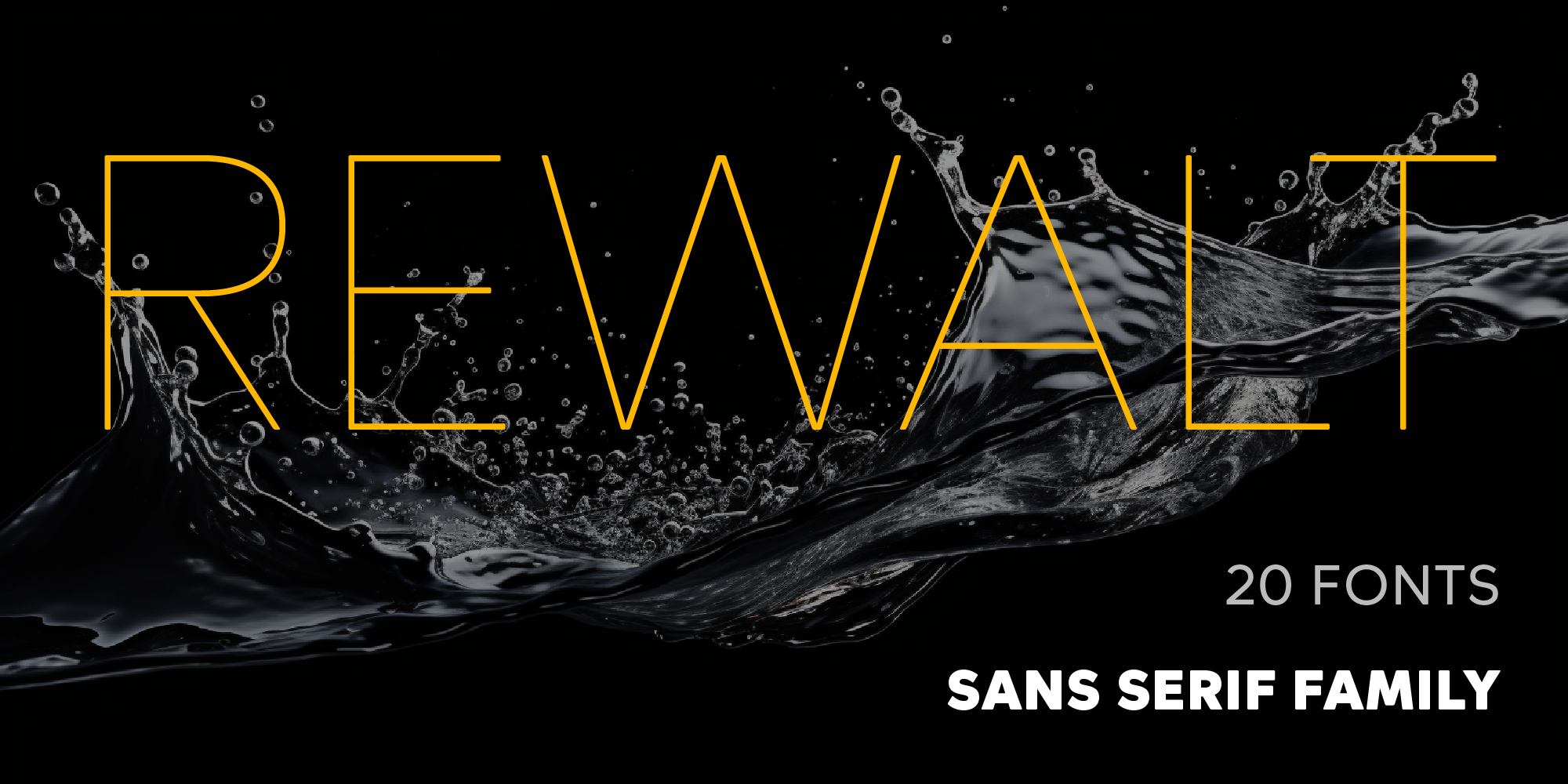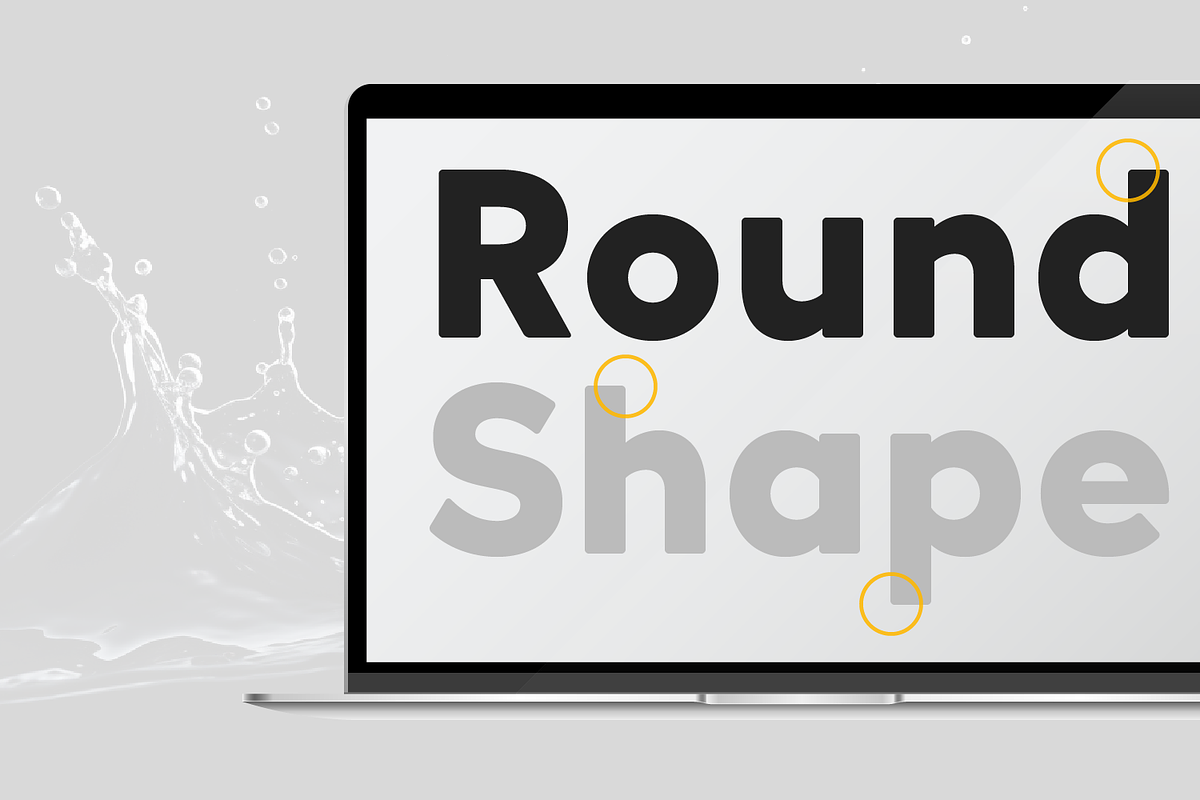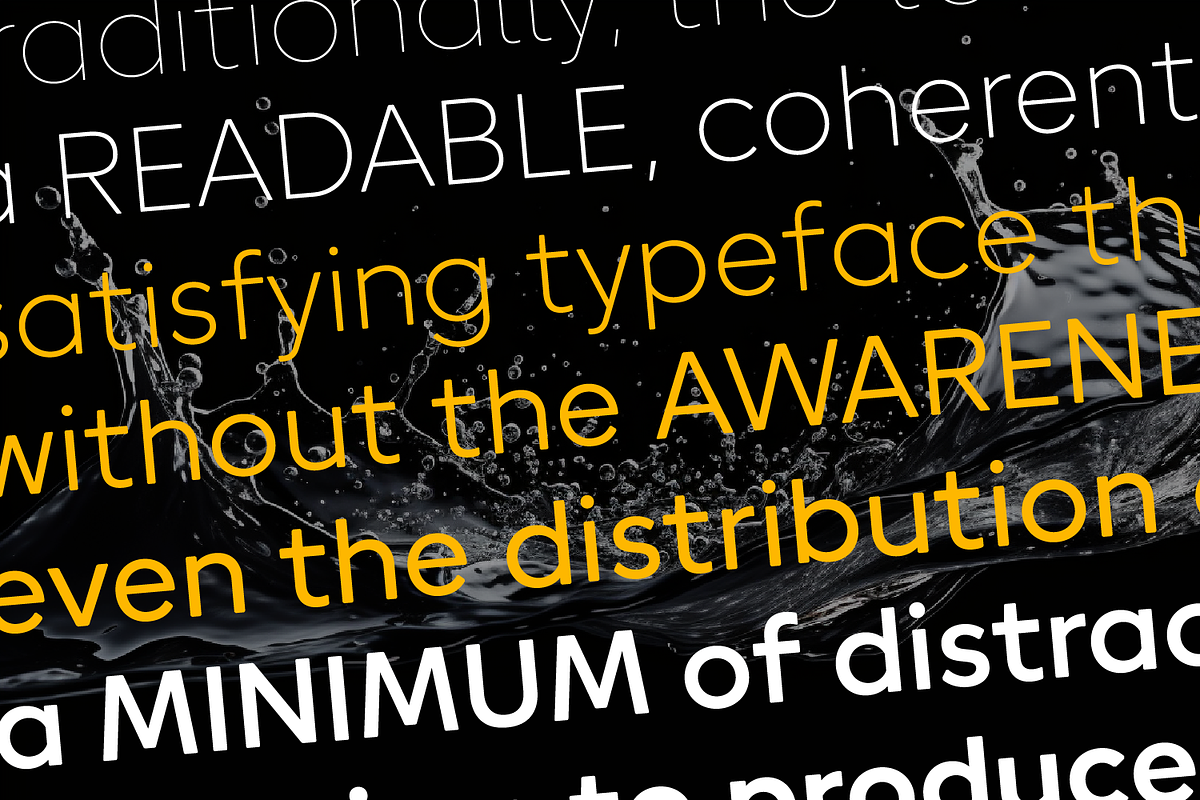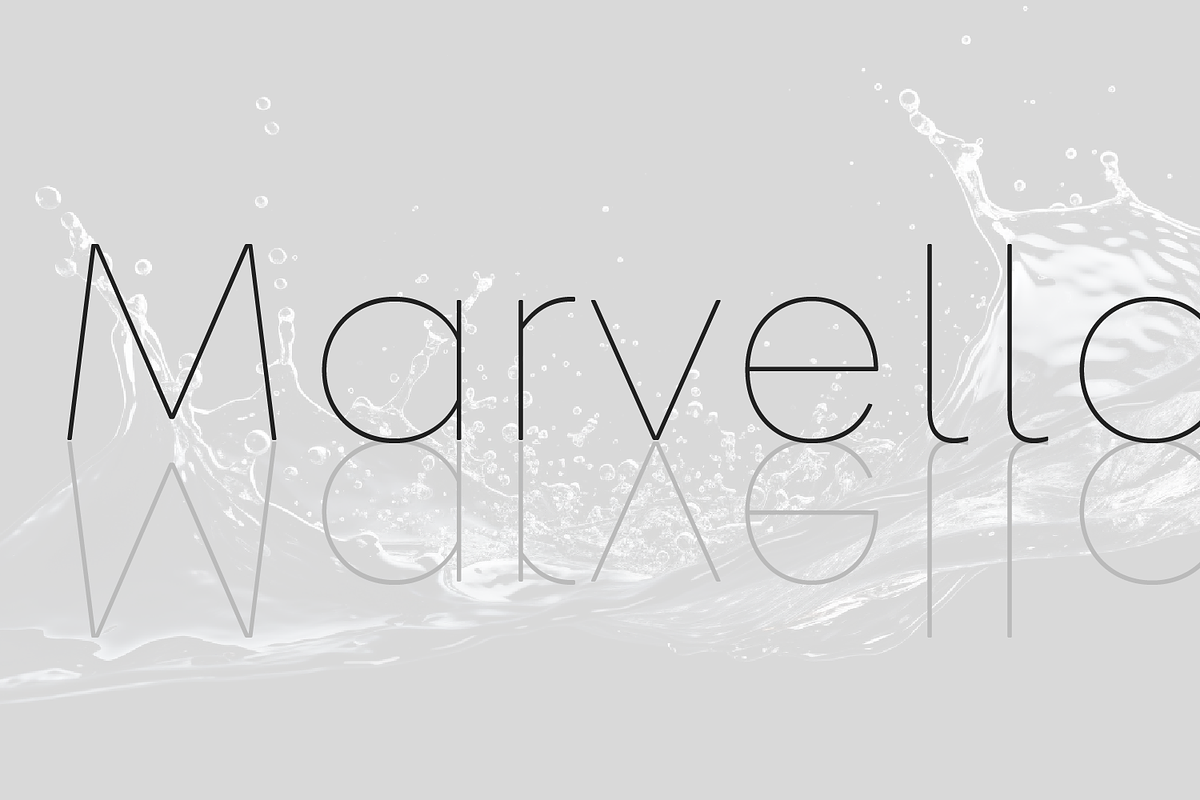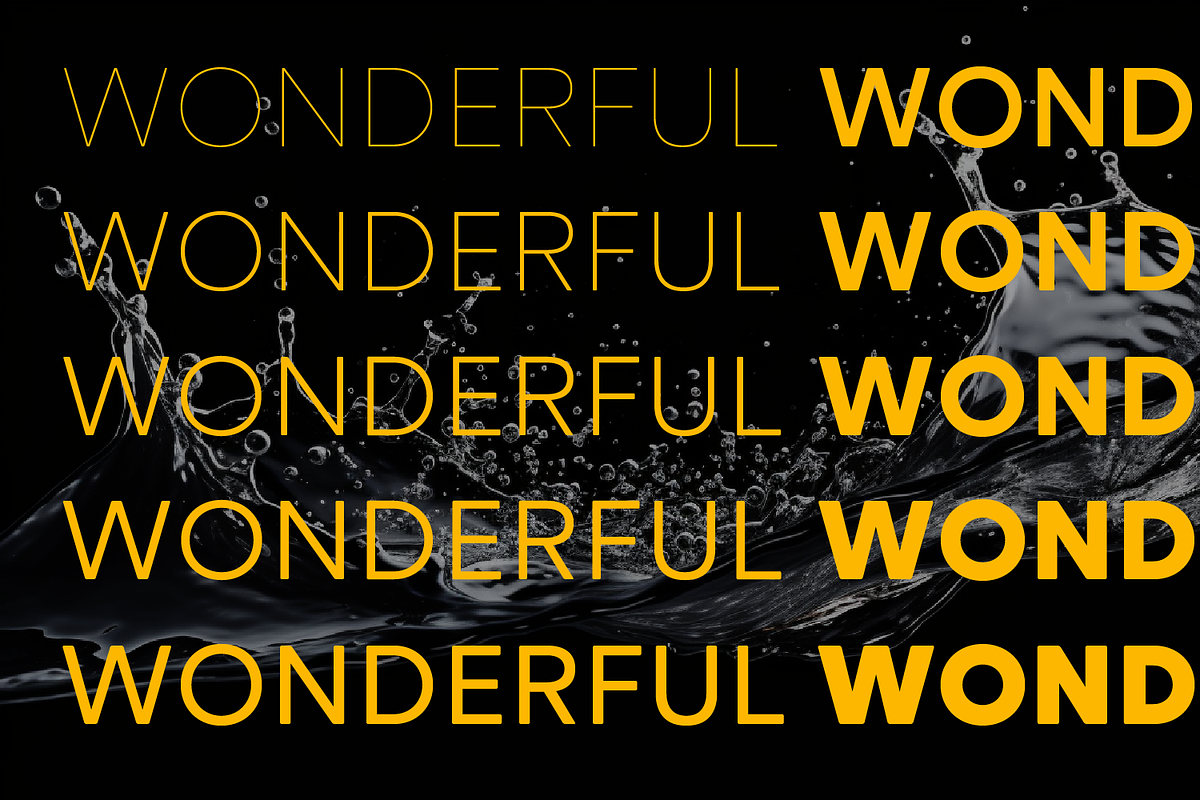
Rewalt Font Family
Discover the versatility of Rewalt Font Family, the best choice for modern design across advertising, blogs, and corporate branding. With its bold, clean, and geometric style, it's perfect for logos, headlines, and editorial use. This font's Swiss precision ensures readability in both print and screen applications, making it a workhorse for all your needs. Its thin and contemporary design adds a trendy touch to your projects, whether in the fashion, gaming, or film industry. Rewalt offers a unique, minimalist aesthetic, with alternates and ligatures for a personalized look. Plus, it supports multiple languages, including German, Czech, and French, catering to a global audience. With OpenType features and webfont compatibility, Rewalt Font Family is your luxury choice for original, commercial, and web-based projects, setting your brand apart as the circle O of excellence.